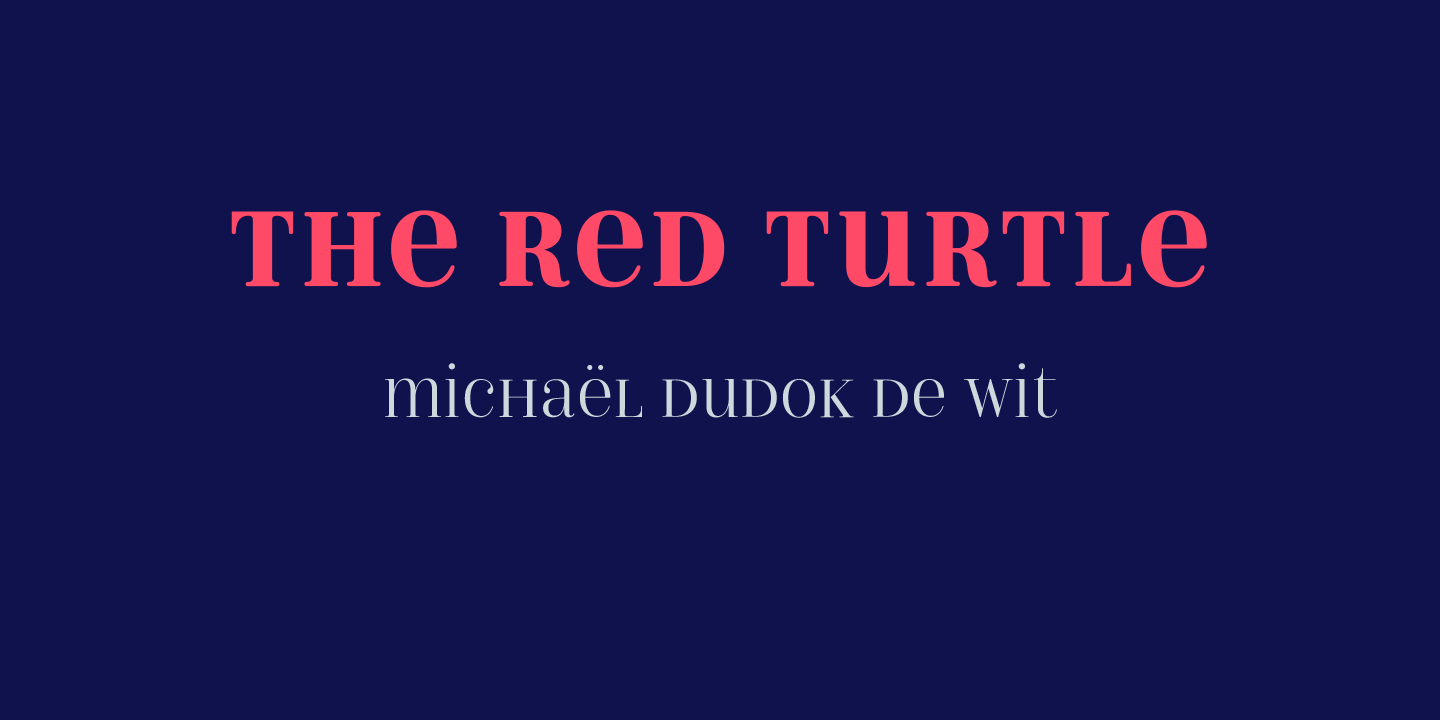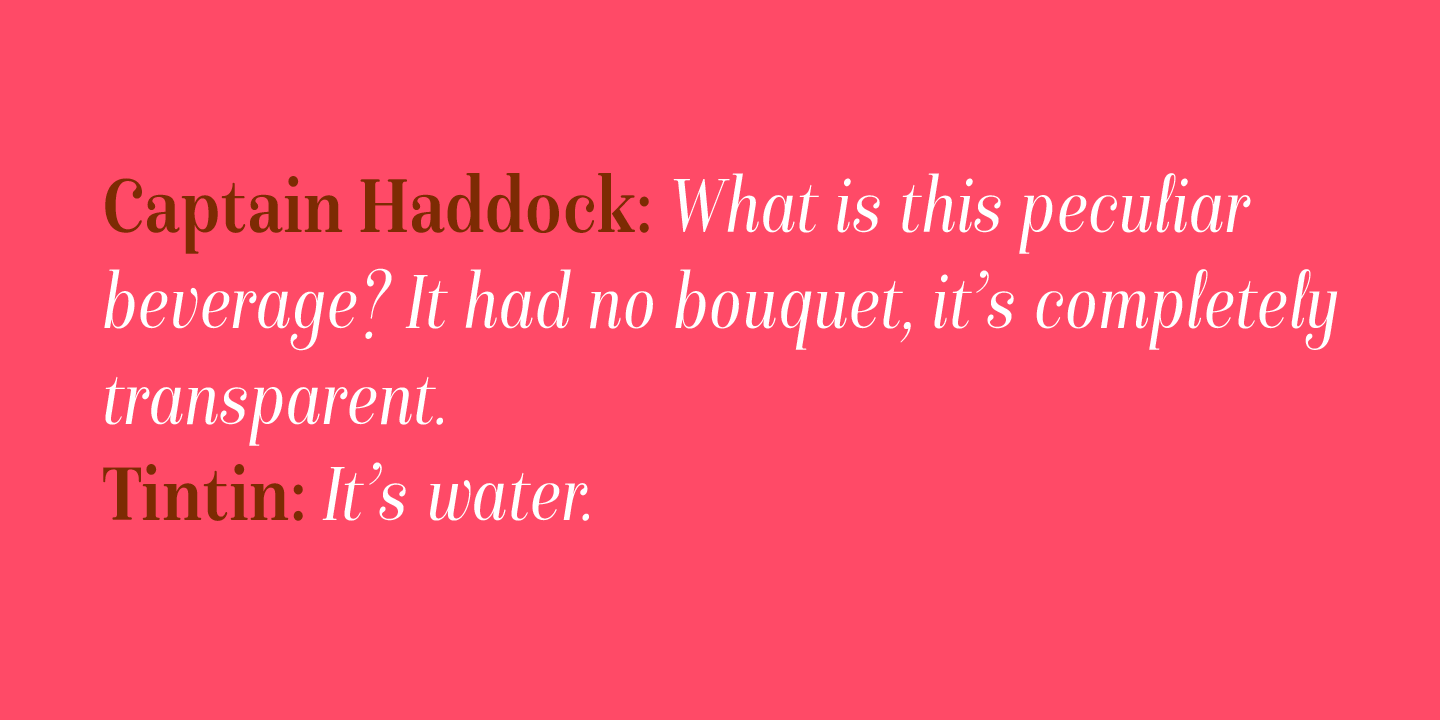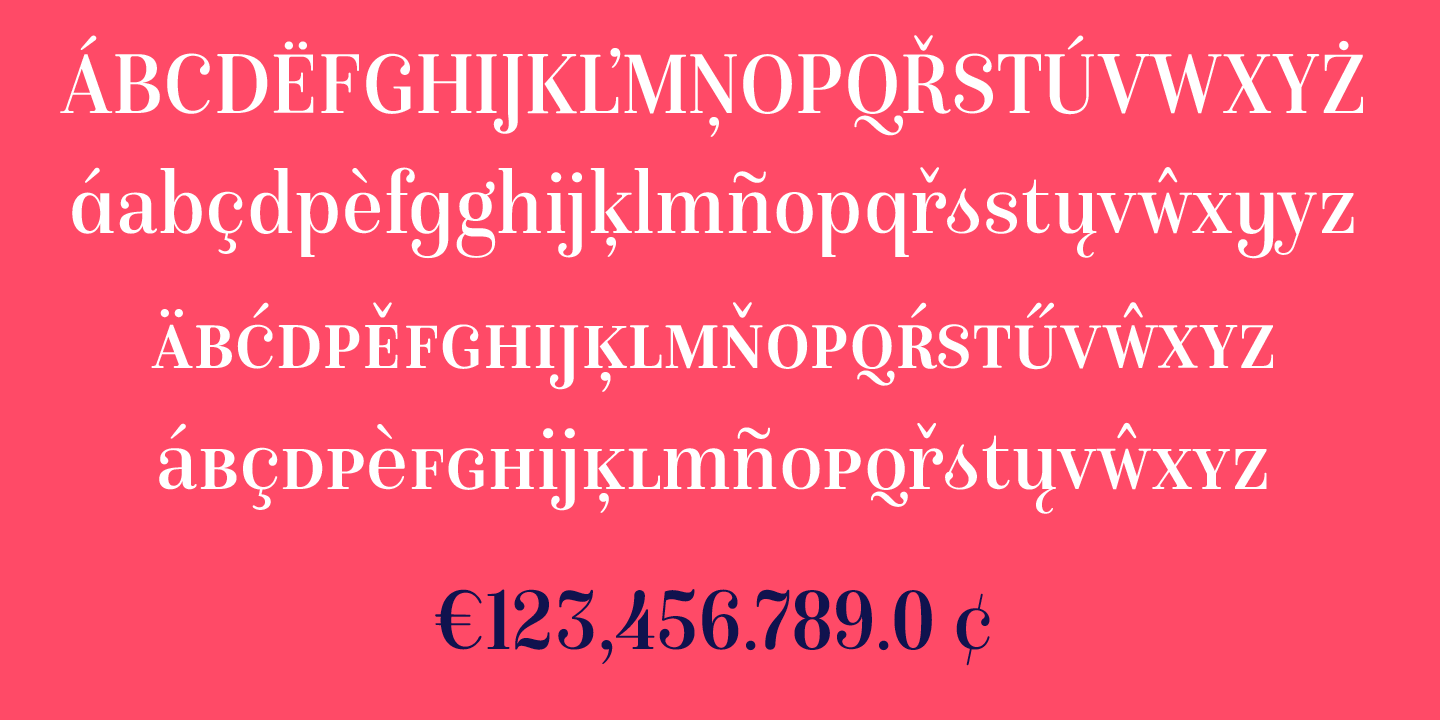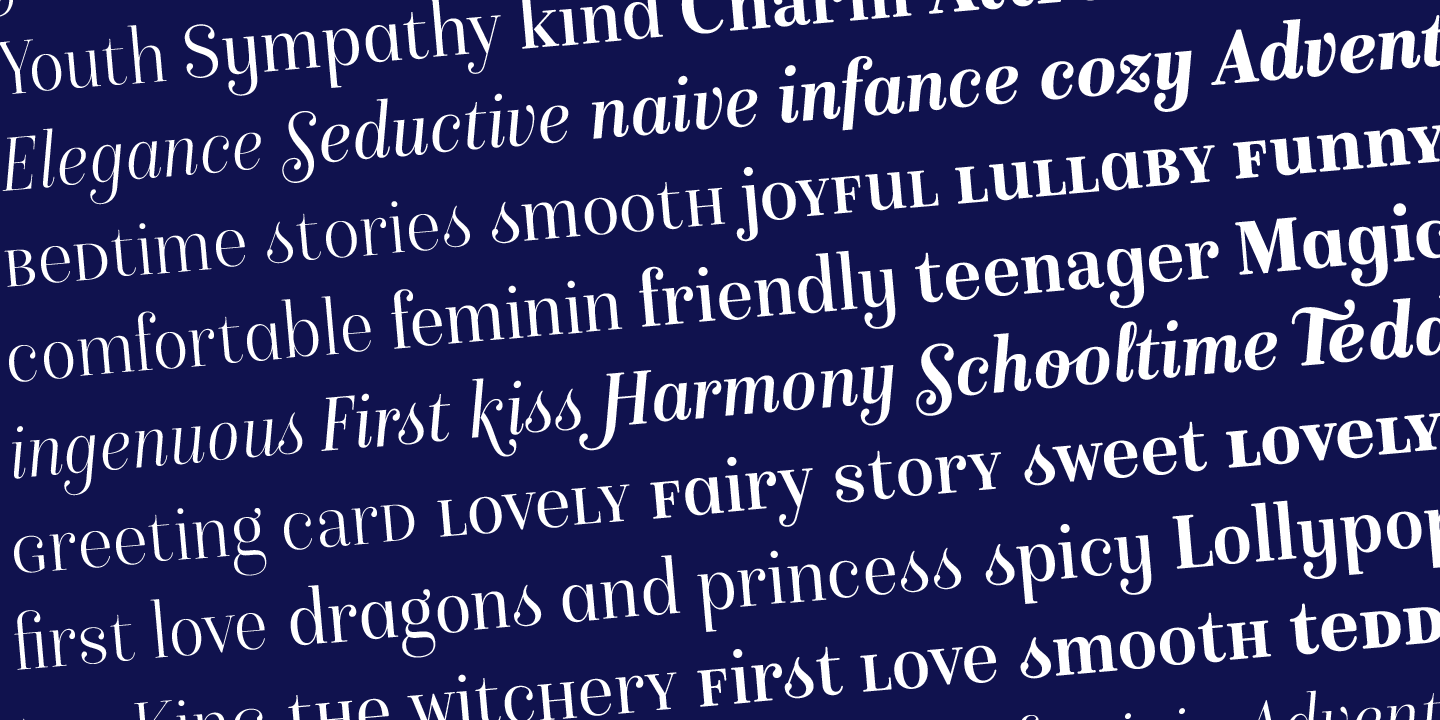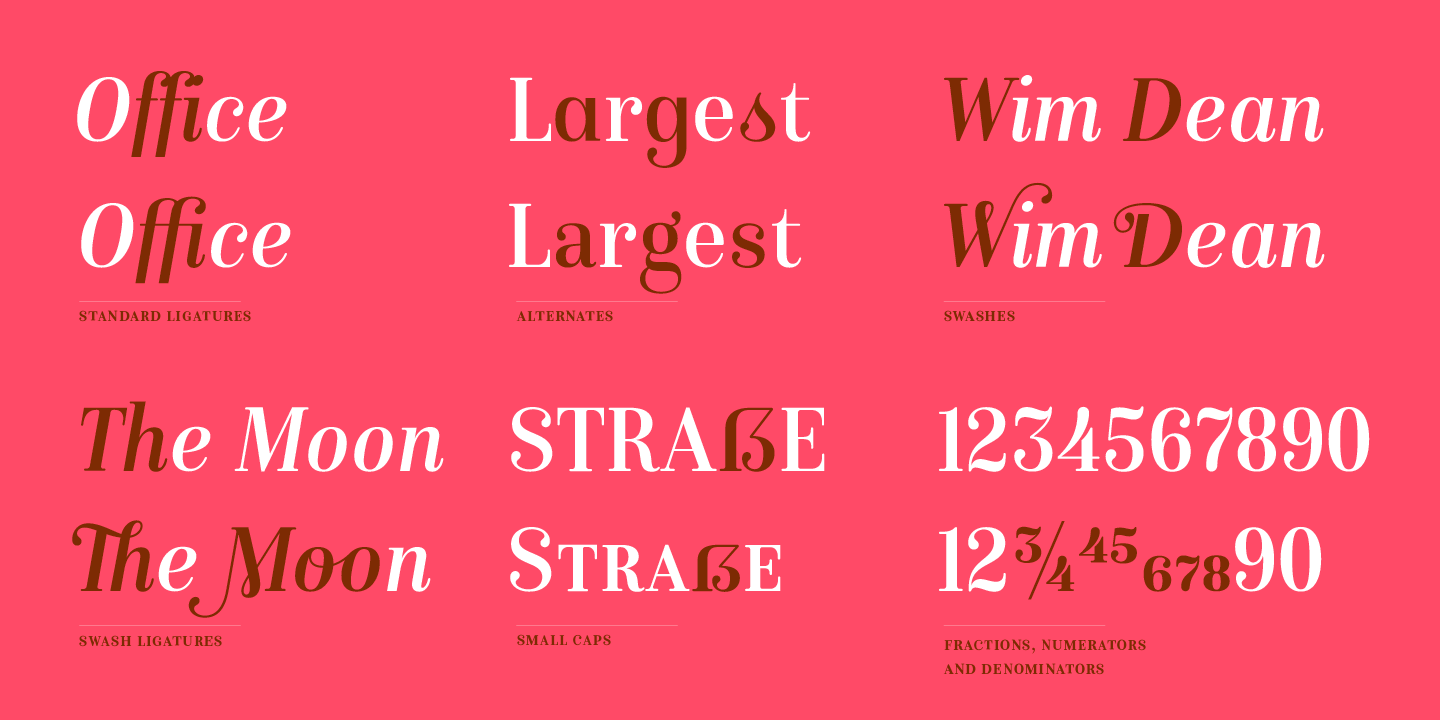
Isabel SemiCondensed
About Isabel SemiCondensed
Isabel SemiCondensed, together with Isabel condensed and Isabel was made out of necessity to create a new font for children and teenagers, that could be enough friendly and versatile for text in words or even easy-to-read long texts. The purpose of Isabel…